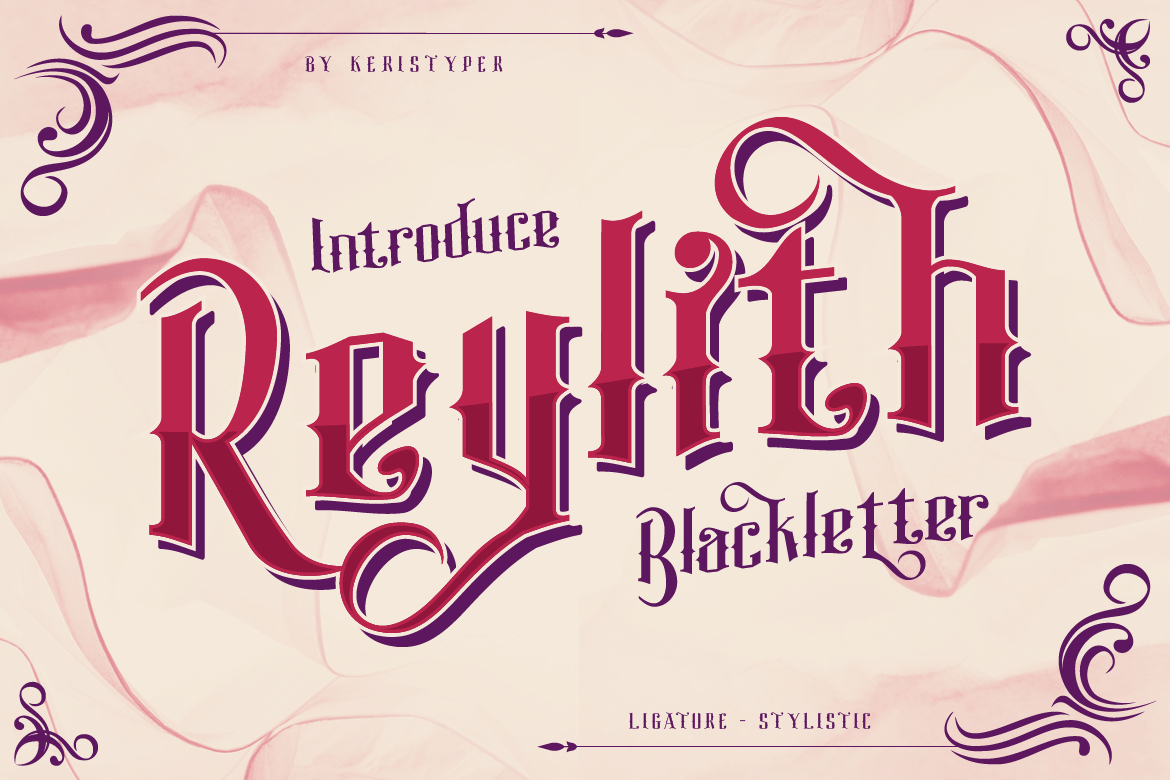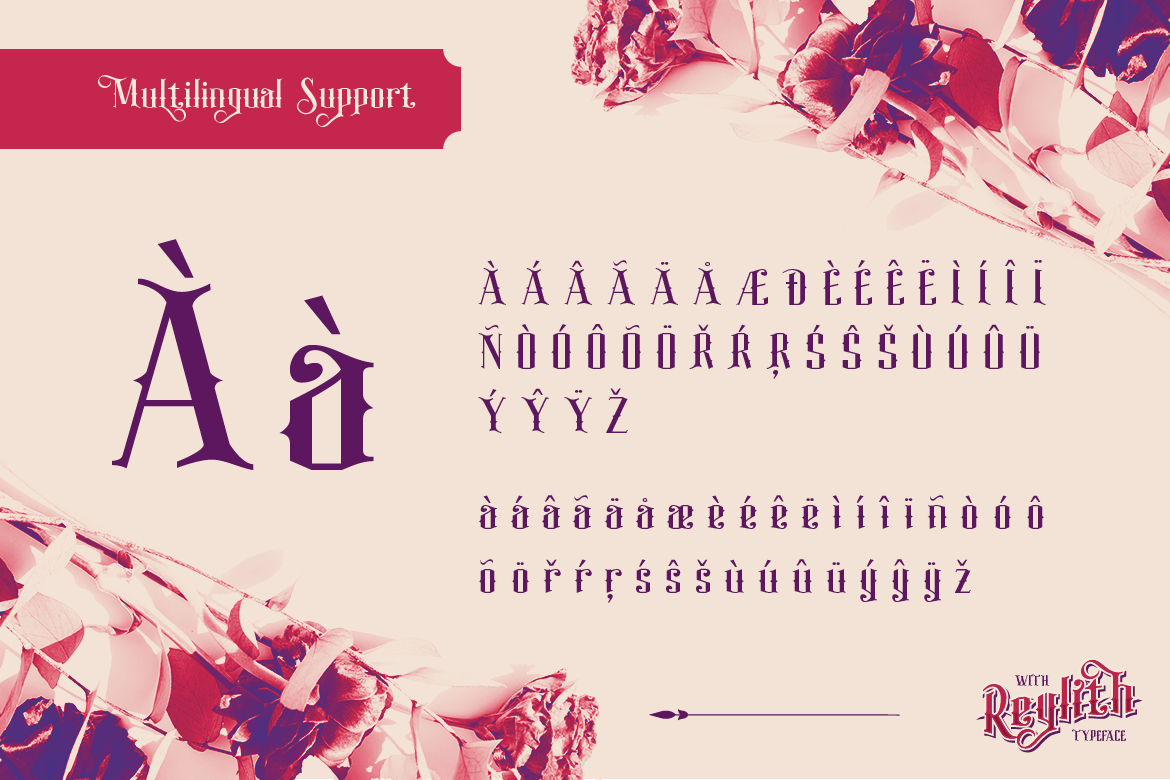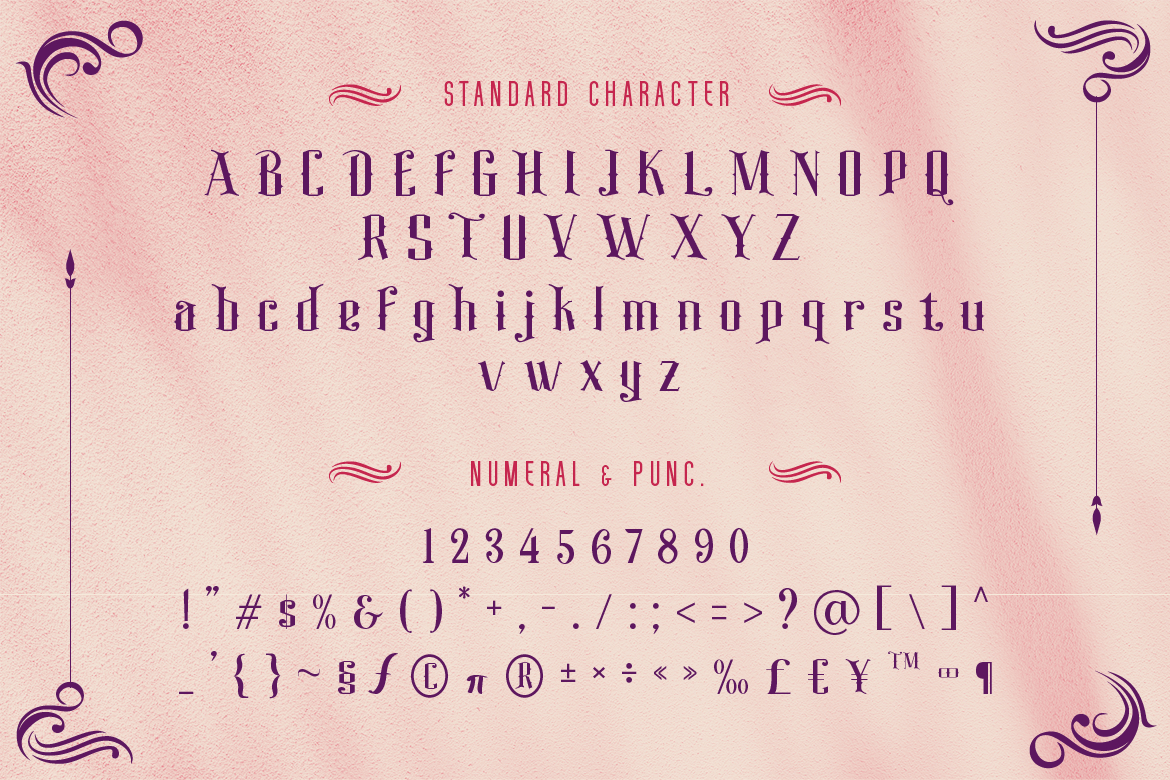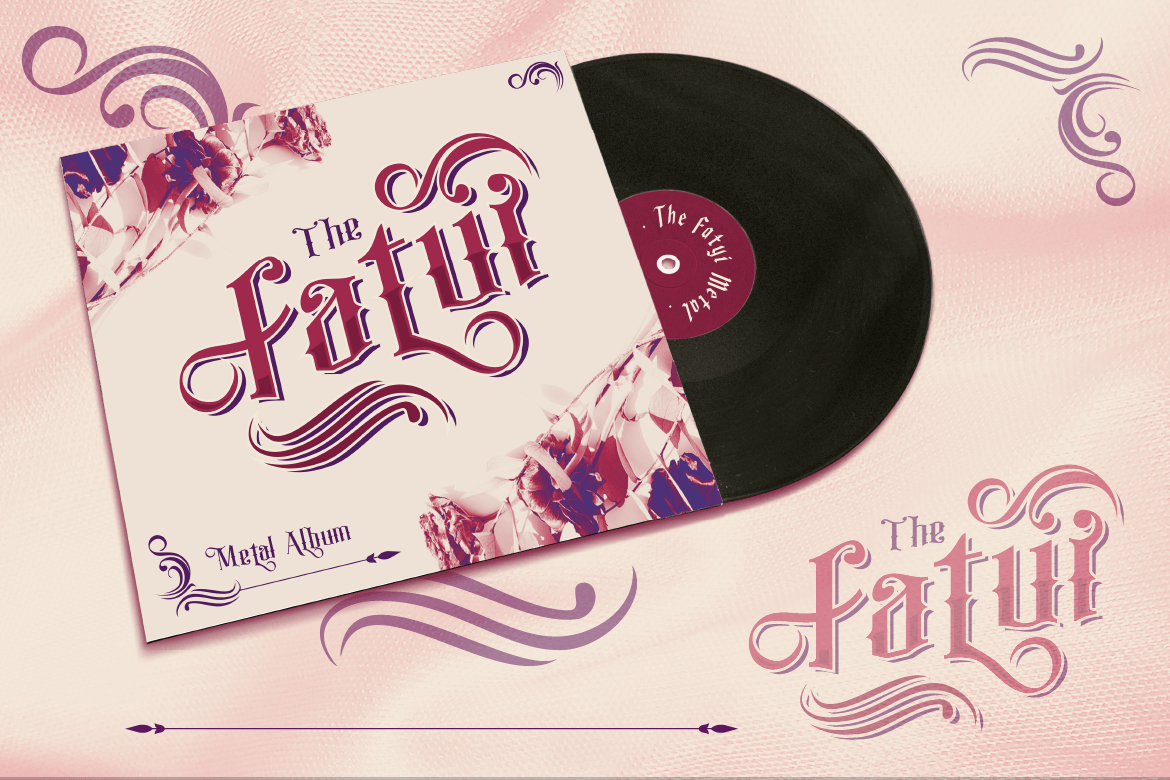
About Reylith Font
Reylith is a blackletter typeface inspired by tattoo letters. This font is good for logo design, Social media, Movie Titles, Books Titles, short text, and even long text, and good for your secondary text font with sans or serif.